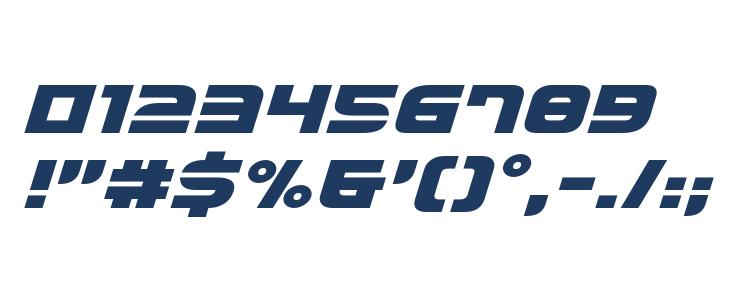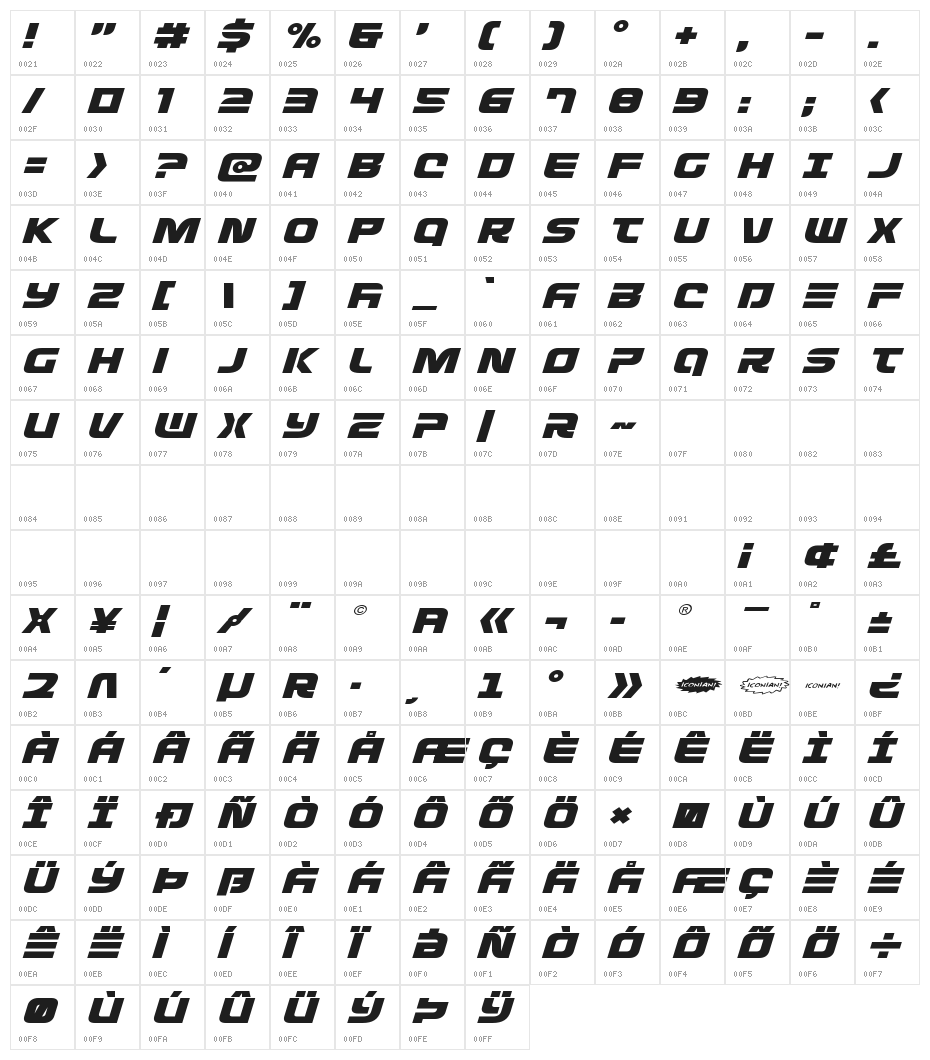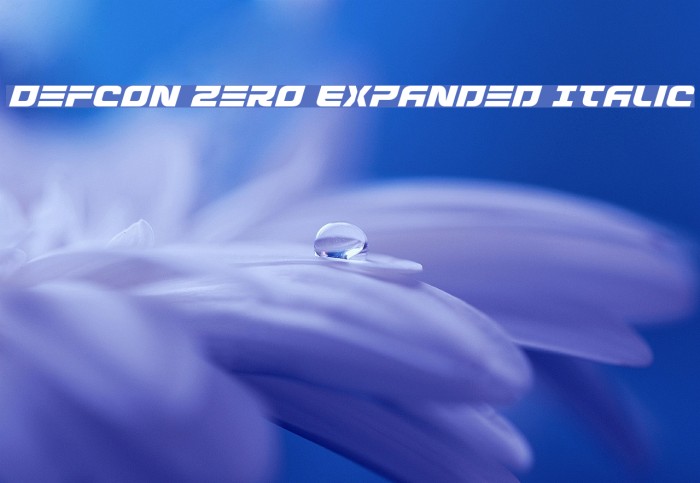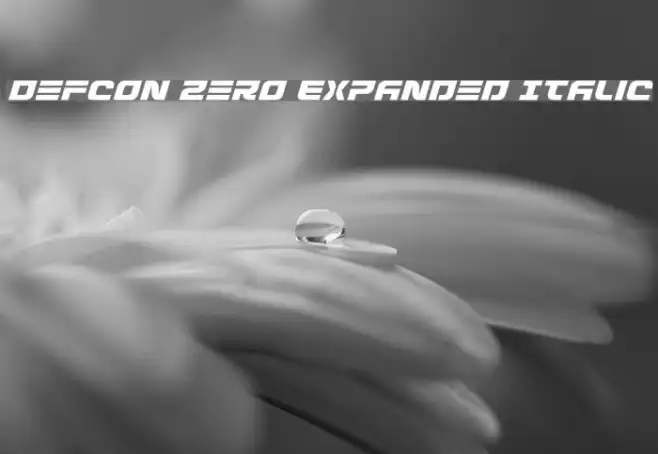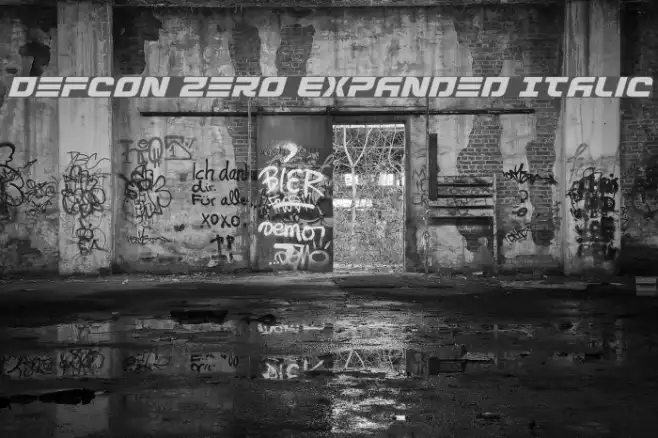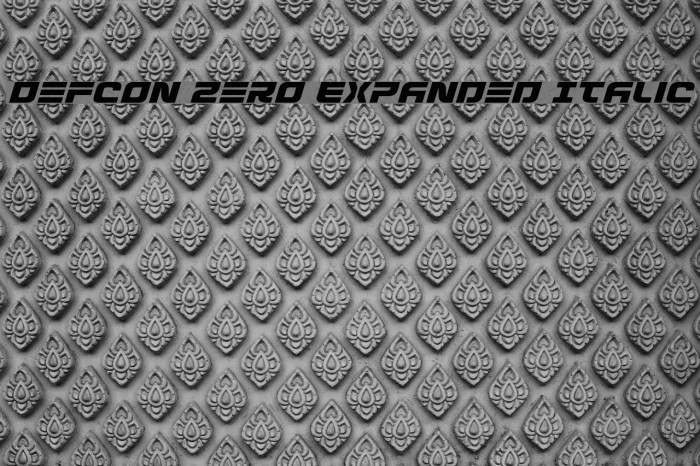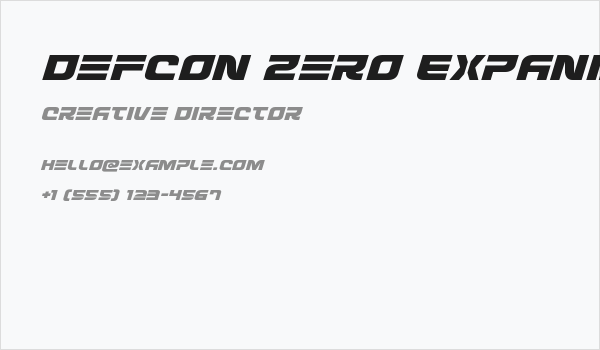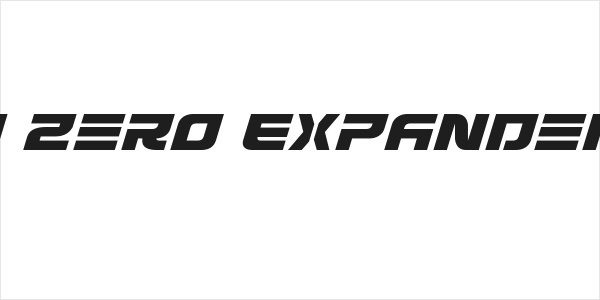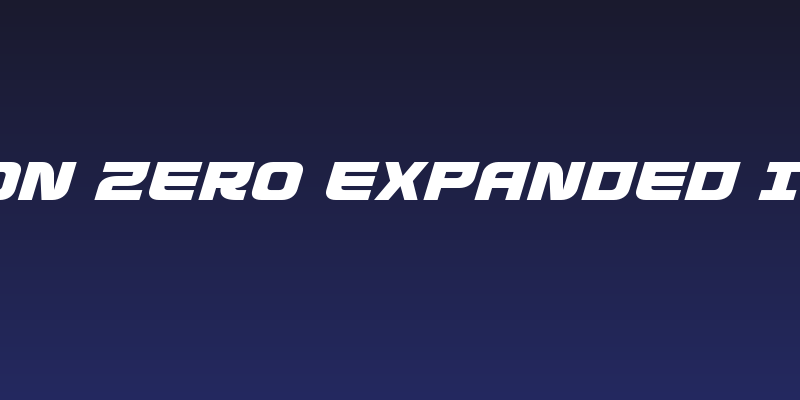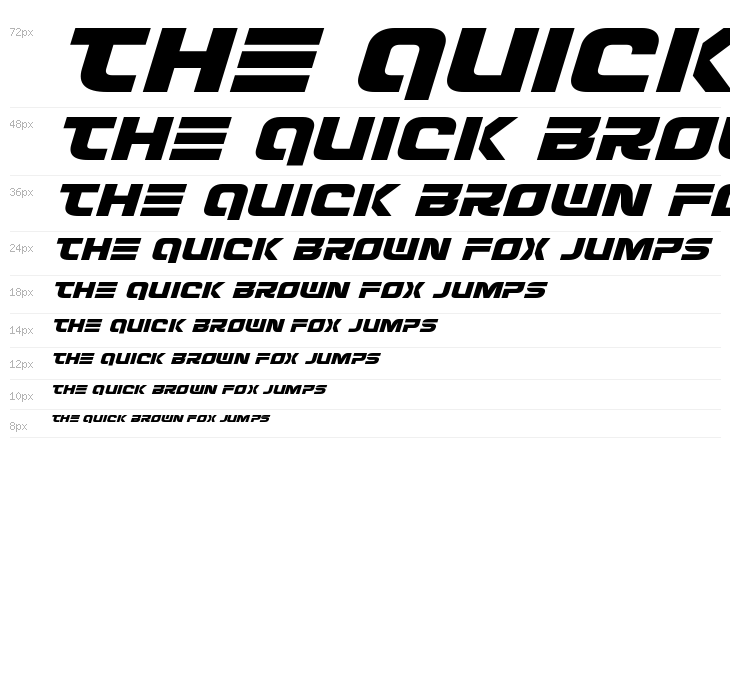
Defcon Zero Expanded Italic Font
Defcon Zero Expanded Italic Description
This font exhibits a bold and futuristic design, characterized by its expanded and italicized letterforms. The angular and geometric shapes give it a dynamic and modern appearance, suitable for projects that require a strong visual impact. The uppercase letters are particularly striking, with sharp edges and a sense of movement. The numbers and special characters maintain the same bold and angular style, ensuring consistency across all elements. The overall design is both eye-catching and versatile, making it ideal for various creative applications.
| Proposed Projects | Ideal for sci-fi themed designs, video game titles, technology branding, and dynamic posters. |